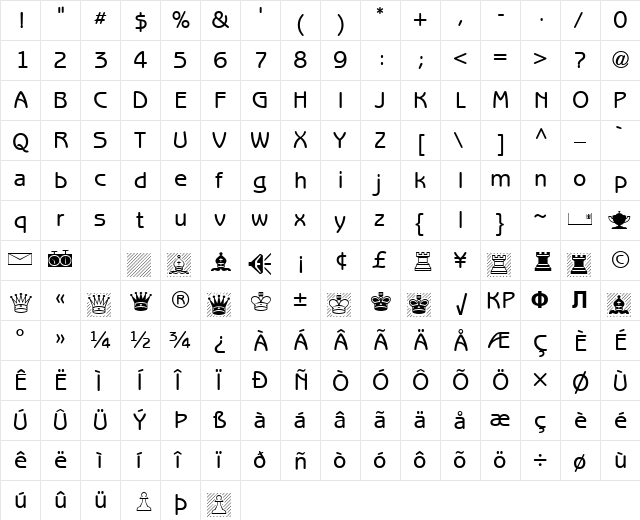
Chessmaster8000 Bold
| Foundry | International Typeface Corporation |
| Designer | International Typeface Corporation |
Design Context for Chessmaster8000 Typeface
Chessmaster8000 offers clean, dependable letterforms without strong stylistic allegiance, making it a practical choice for designers who need flexibility. The heavy weight commands attention and anchors typographic hierarchies.